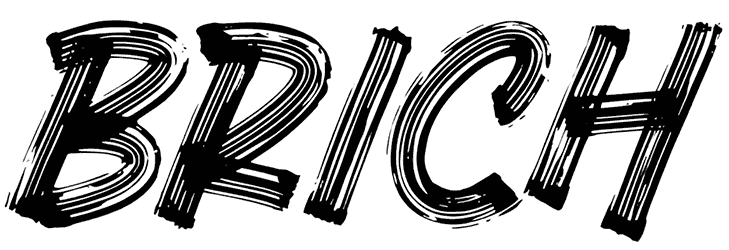
Having a script font such as Brich would help you to increase your domination on any kind of graphic project, including illustrations, book covers, announcements, logos, or brochures.
Since the characters of this all-caps brush font are a little bit oblique, it would look perfectly fit for all of your professional needs. Considering its ability to share a sense of personalization, innovation, diversity, or tenderness, the lack of numbers is negligible.